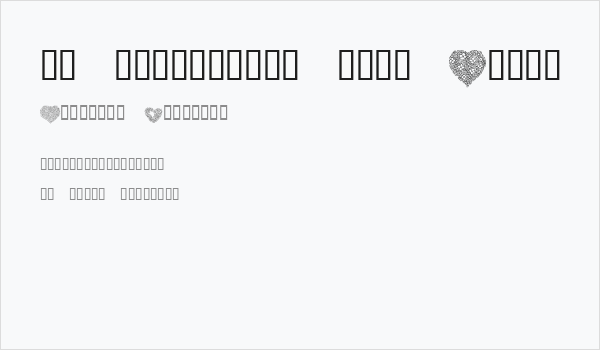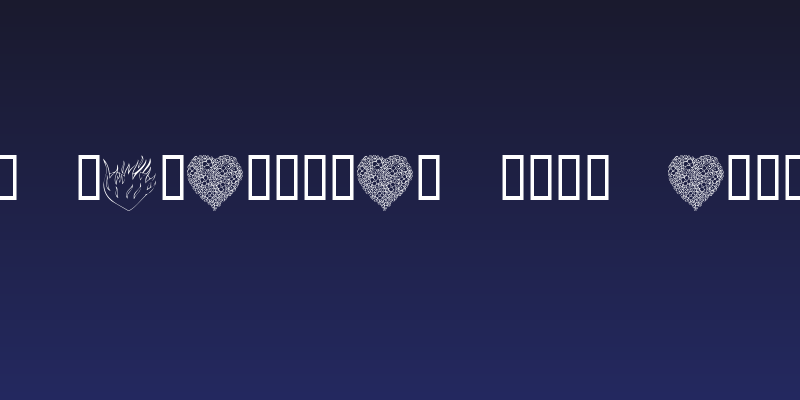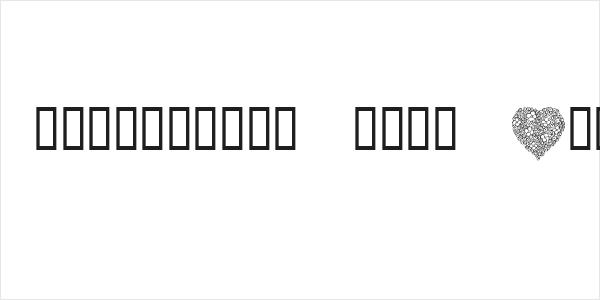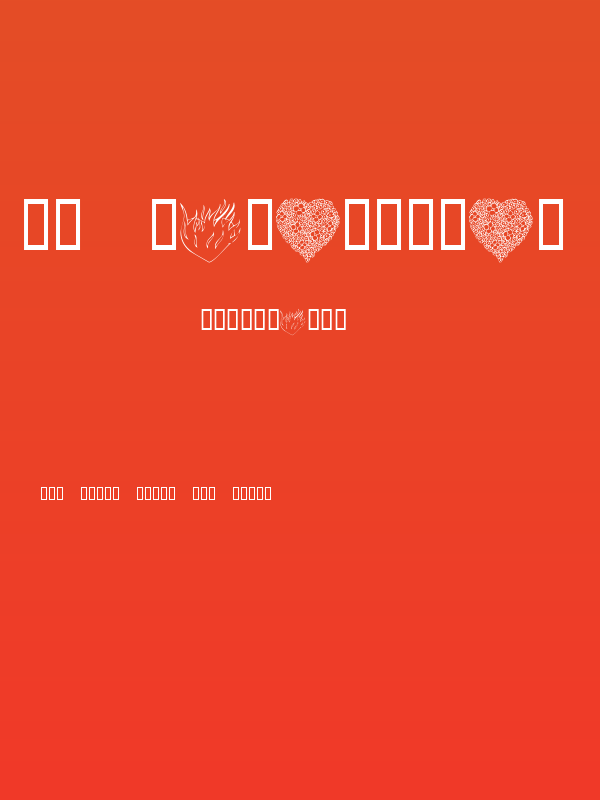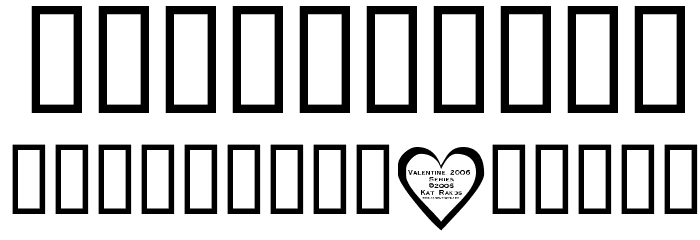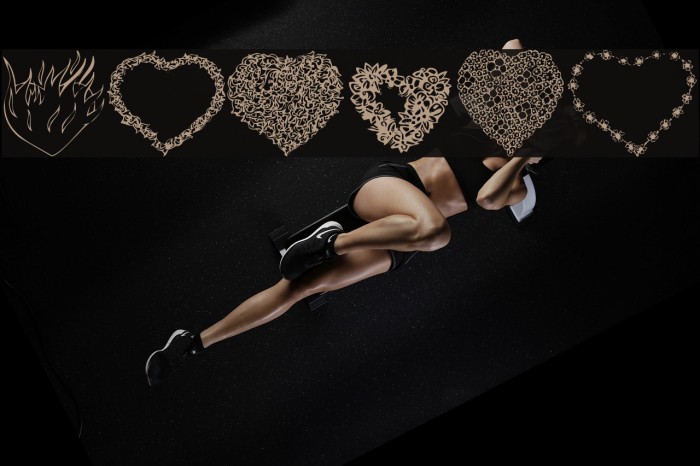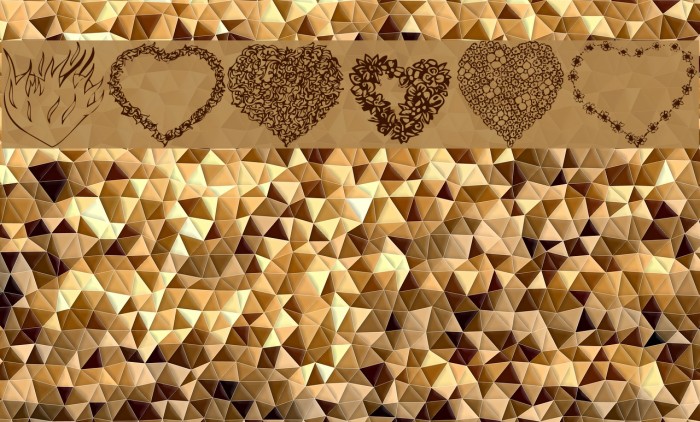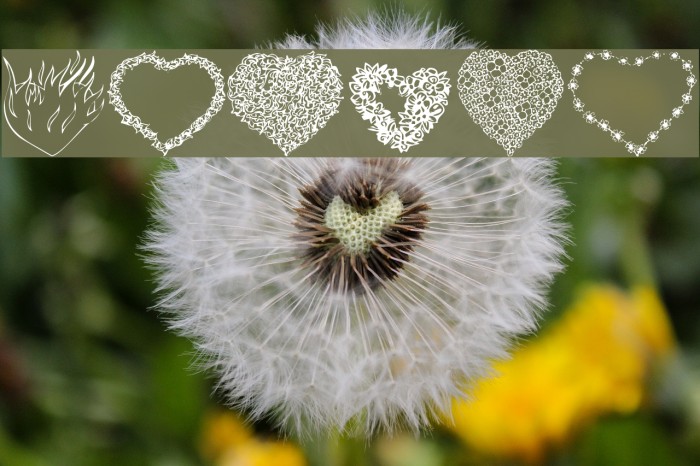
KR Valentines 2006 Eight Font
KR Valentines 2006 Eight Description
A decorative dingbat font featuring various heart shapes, floral patterns, and whimsical Valentine-themed illustrations. Each glyph is a unique graphic rather than a traditional letterform, making it suitable for ornamental and thematic design work.
| Overall Style | Decorative, Whimsical, Thematic |
| Use Case | Ornamental graphics, Themed decorations, Craft projects |
| Proposed Projects | Greeting cards, Valentine's Day invitations, scrapbooking, themed posters, digital stickers. |